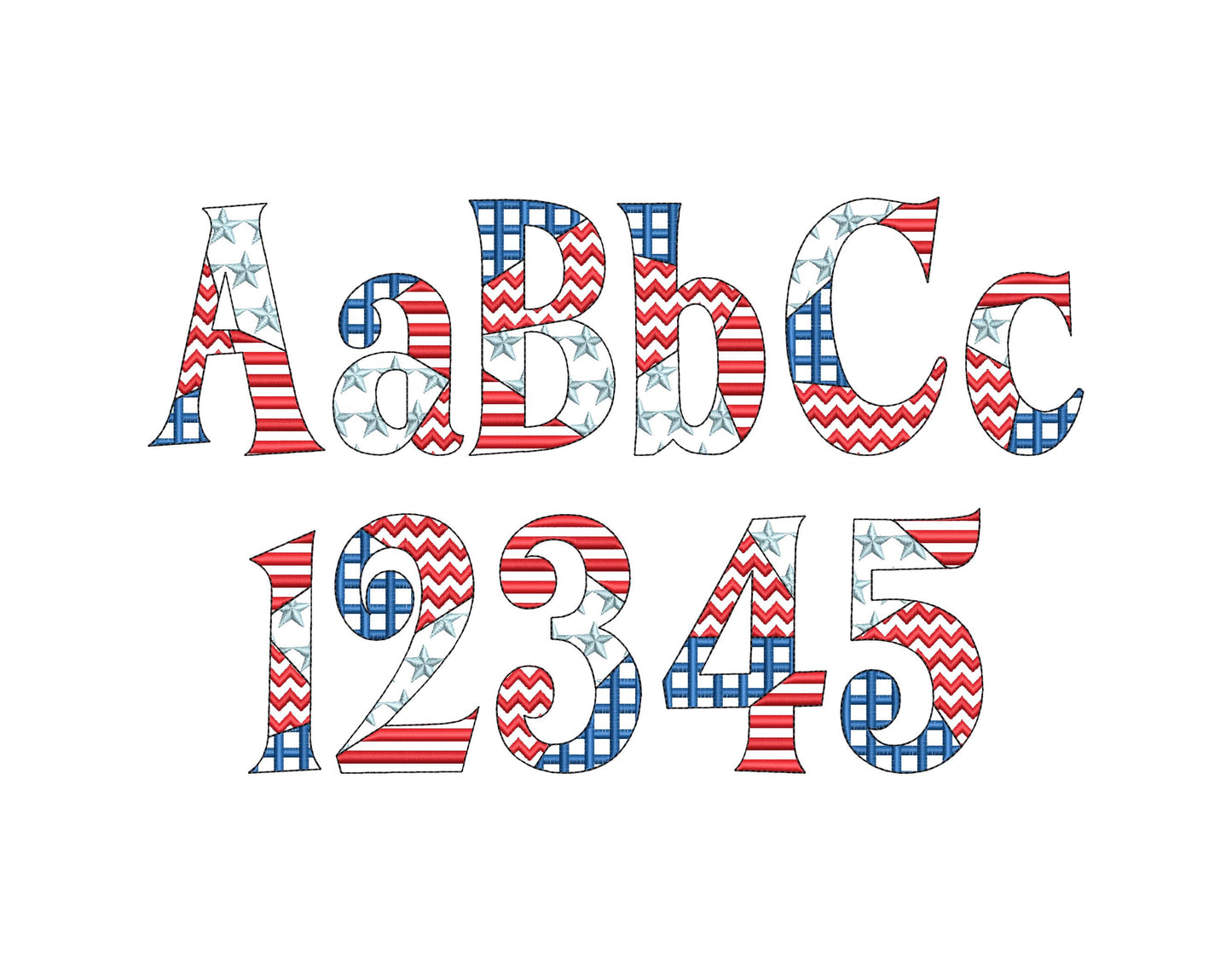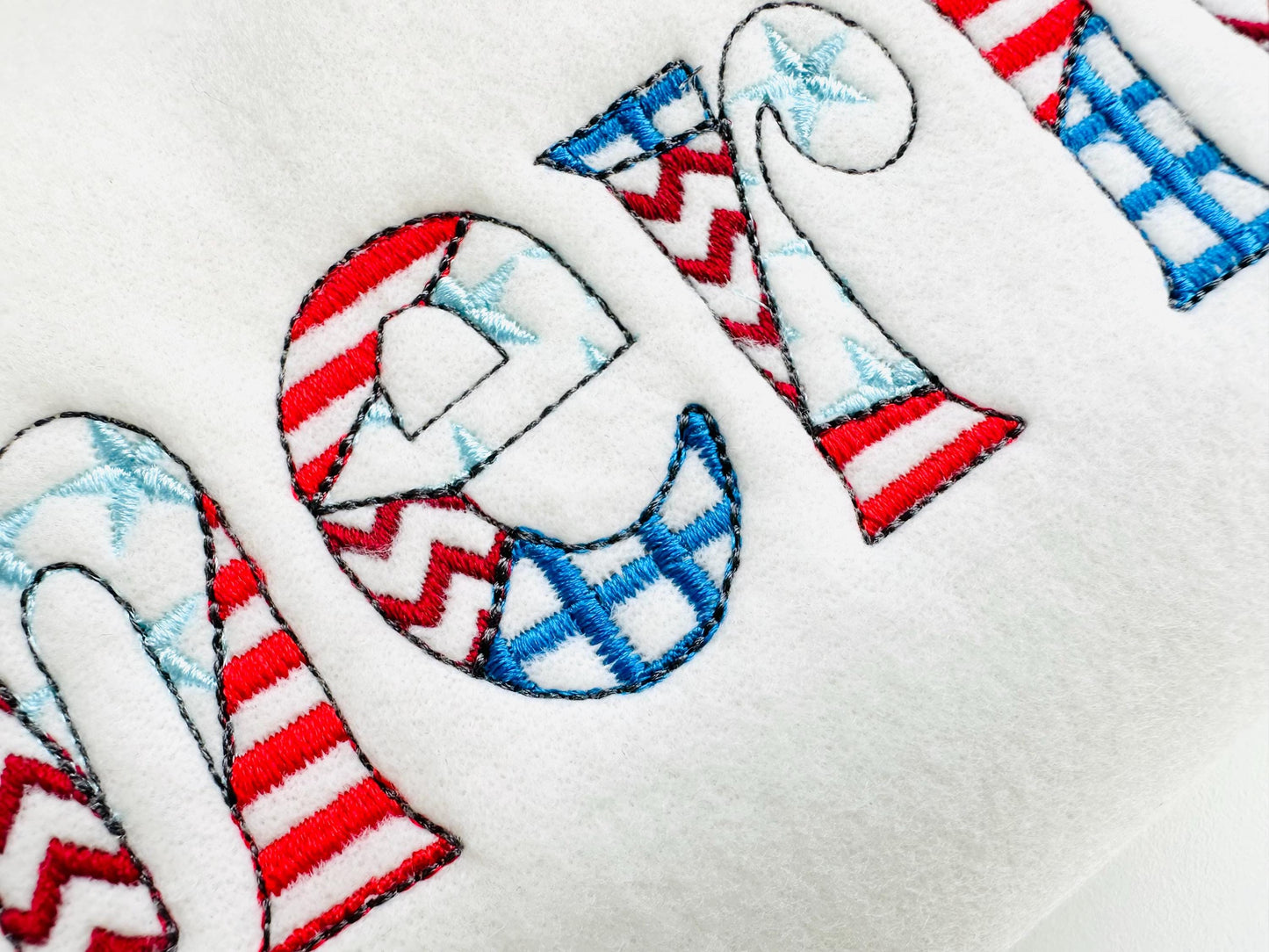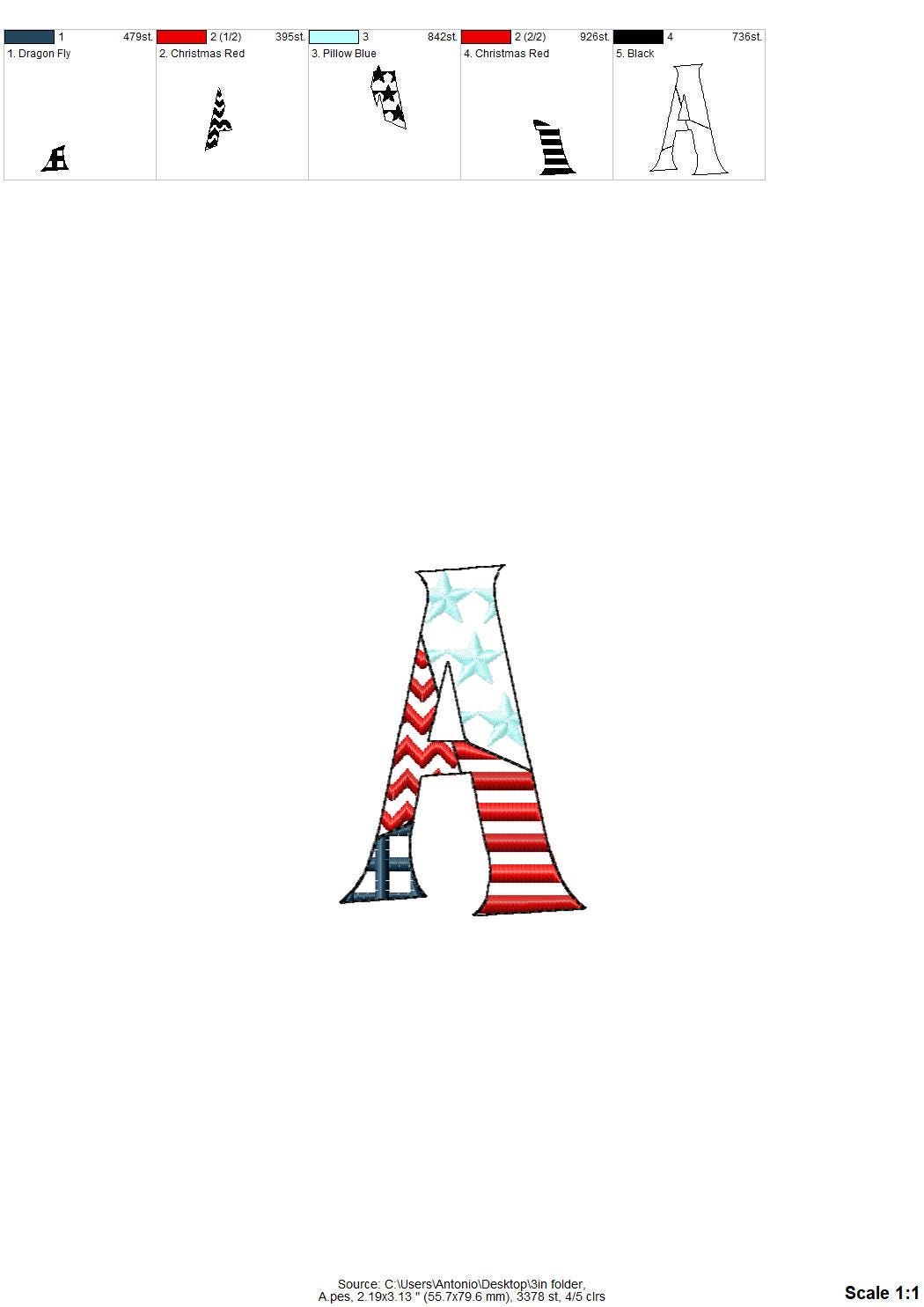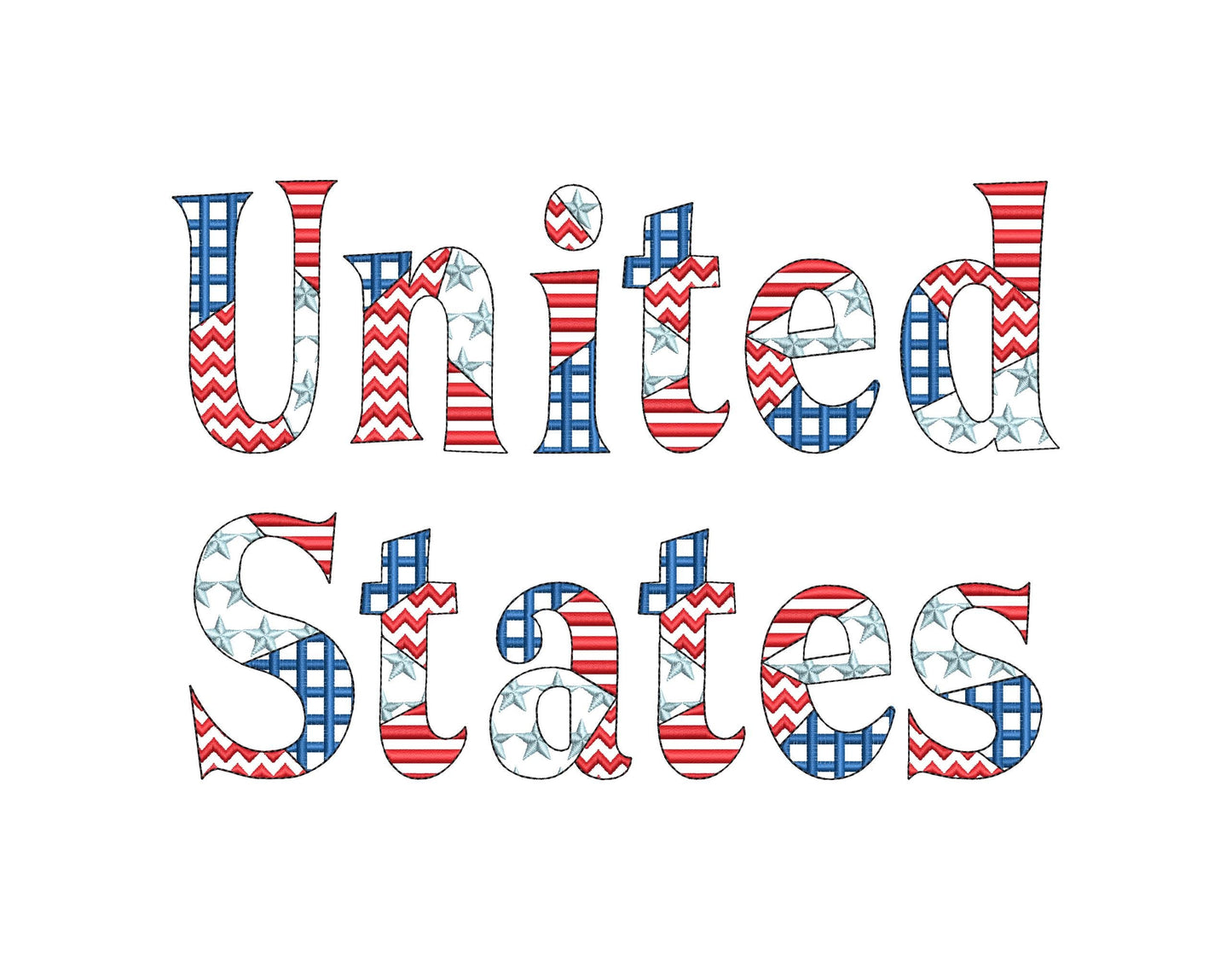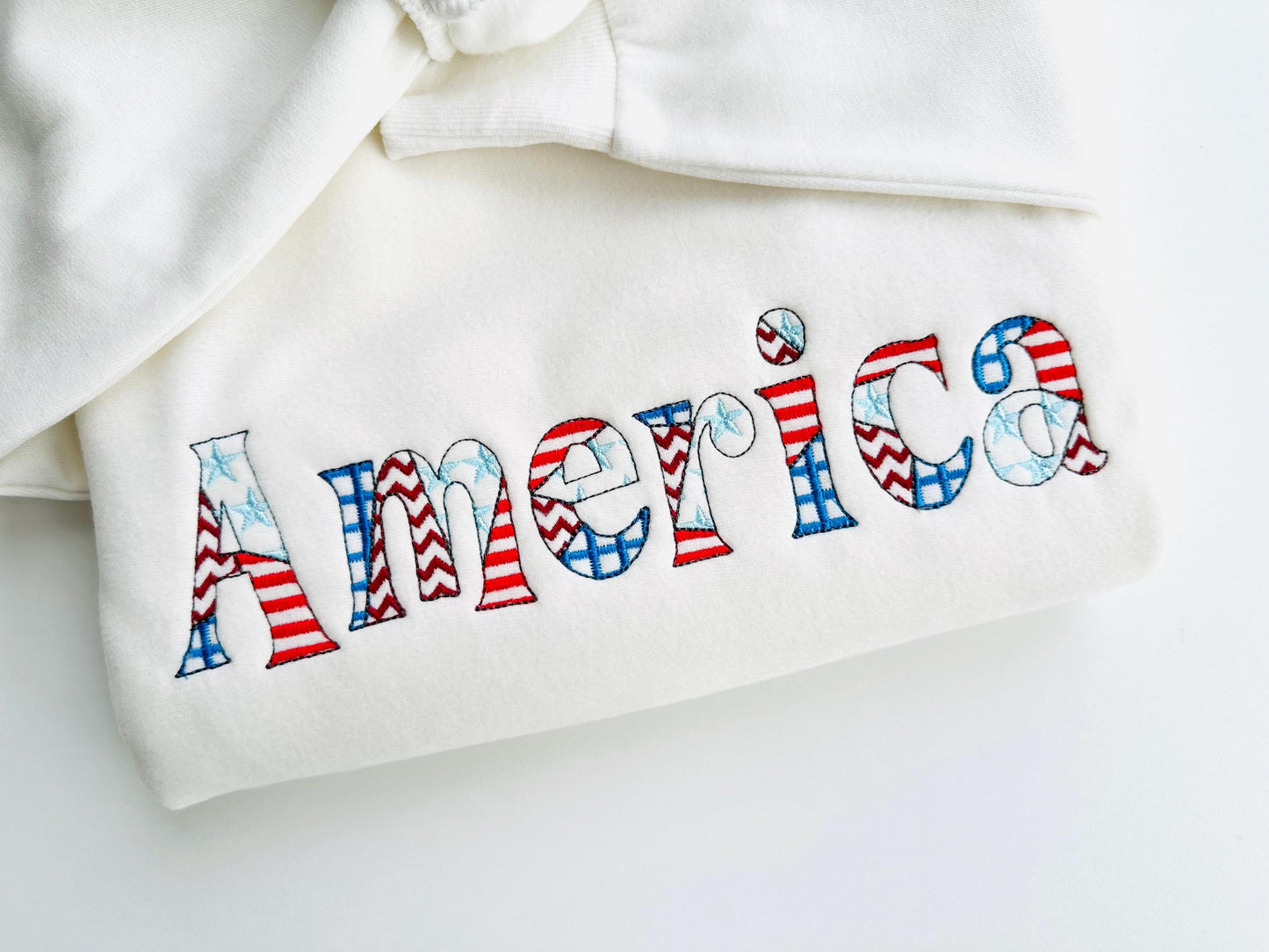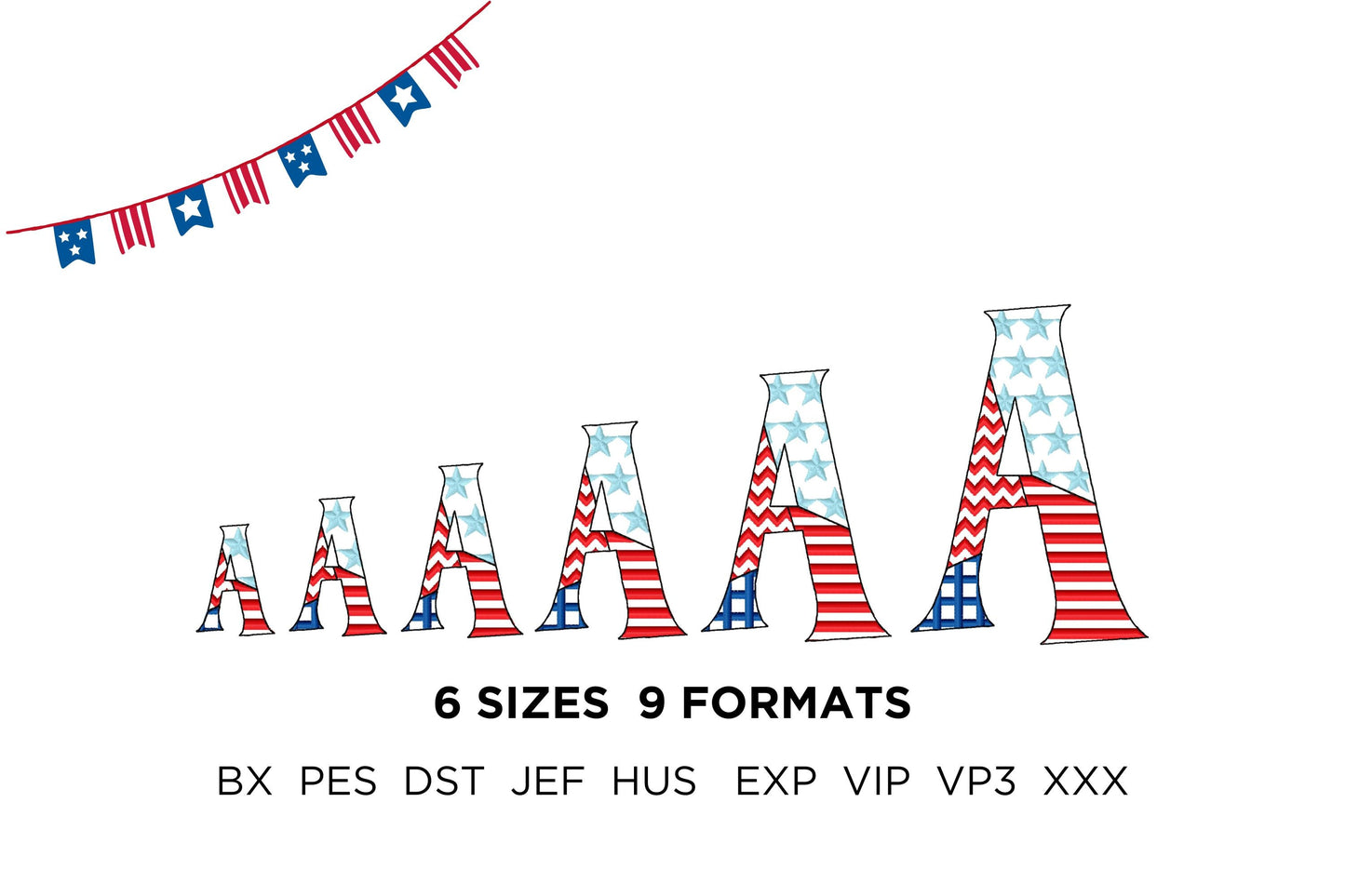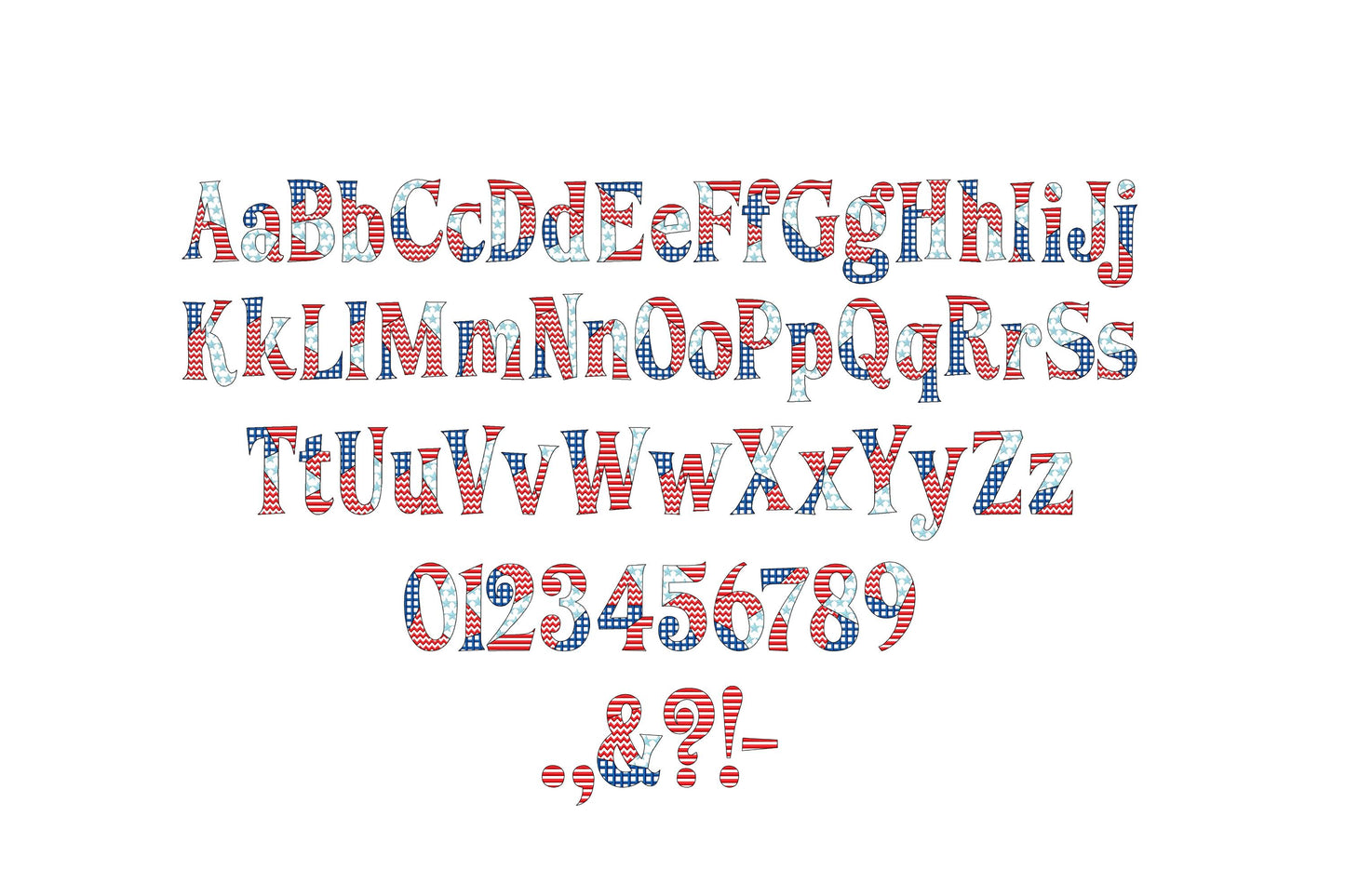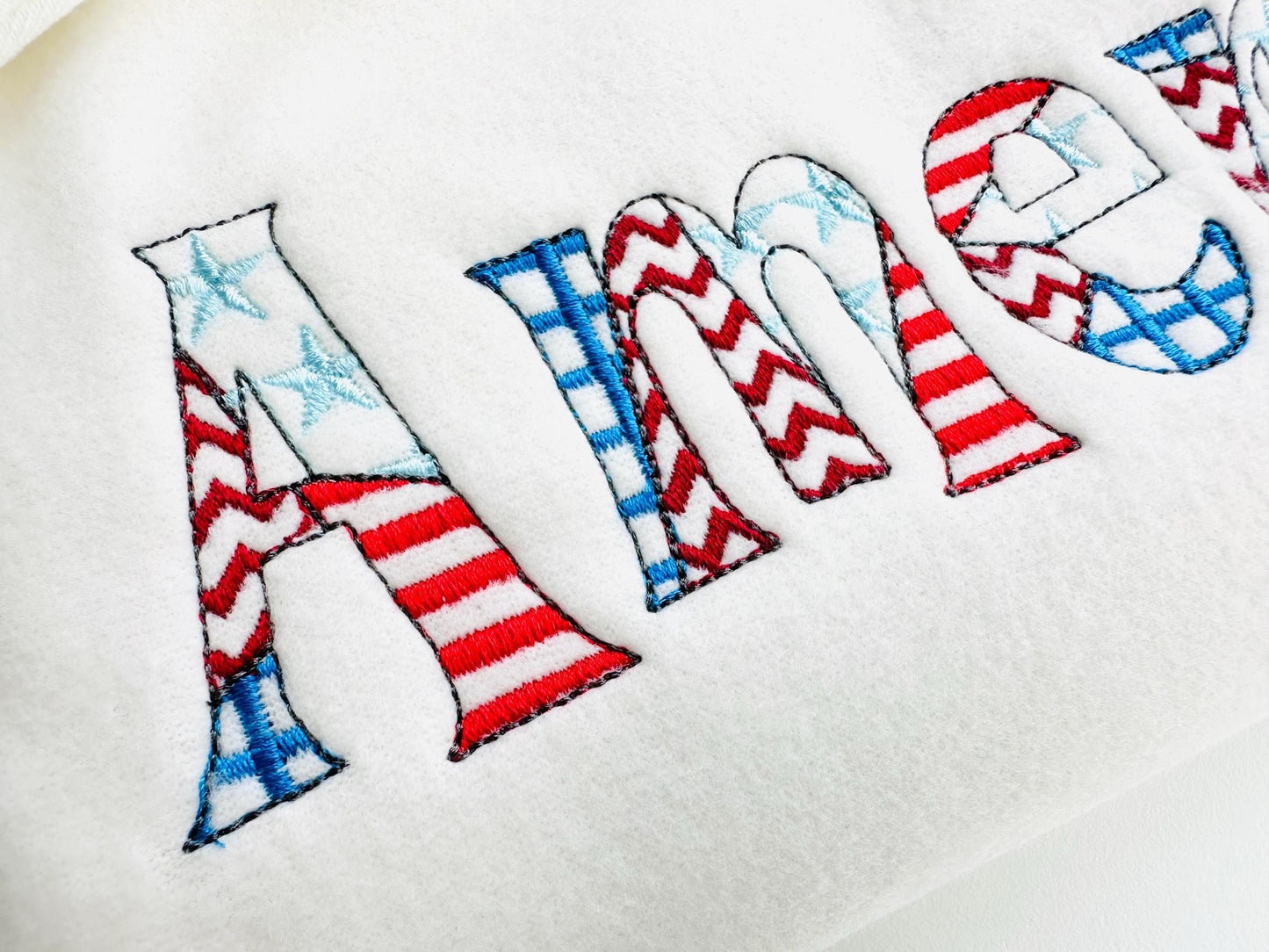
Or click to open the linkA patriotic patchwork font filled with an American flag pattern. Great for Fourth of July shirts, pillows, tote bags and monograms.
Uppercase and lowercase letters, numbers 0 to 9 and punctuation. Six sizes: 1.6, 2, 2.5, 3, 4 and 5 inches. The flag pattern is stitched inside an outline and the fabric shows through, for a light patchwork look.